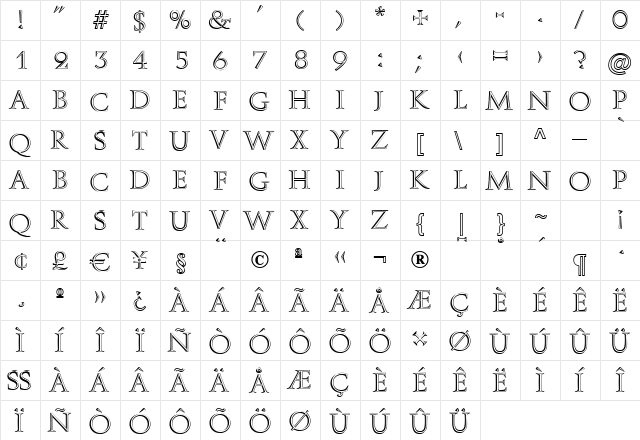
A850-Deco Regular
Design Context for A850-Deco Typeface
A850-Deco takes a measured approach to typography — its balanced proportions and neutral character make it a reliable workhorse for both digital and print work.